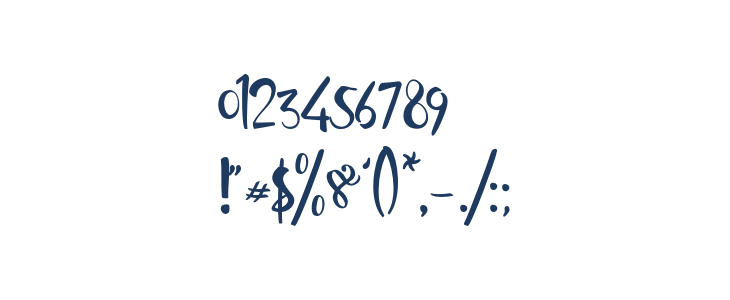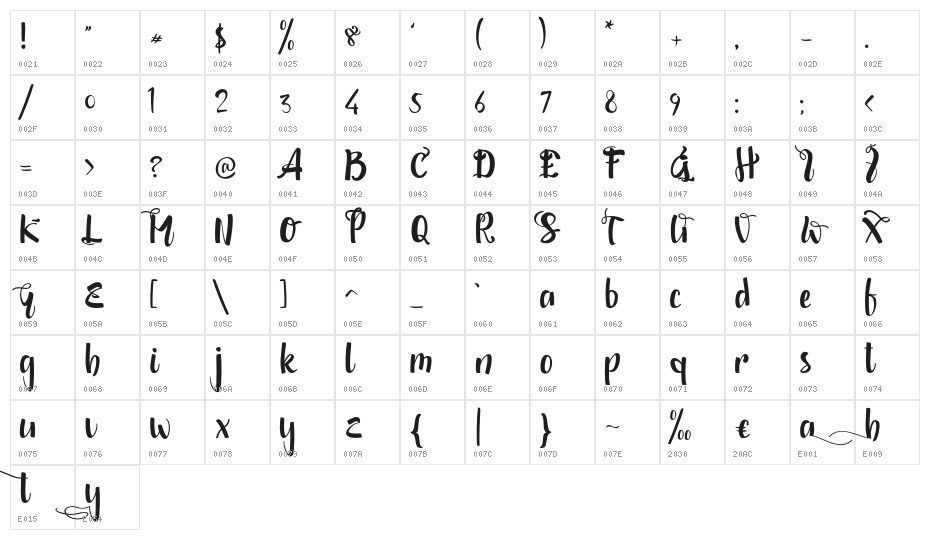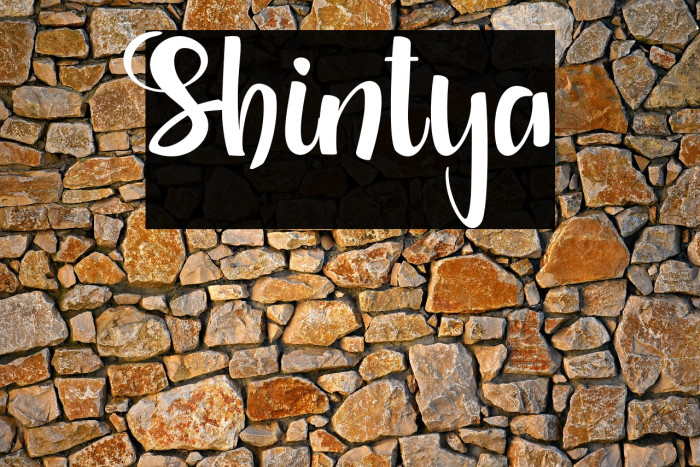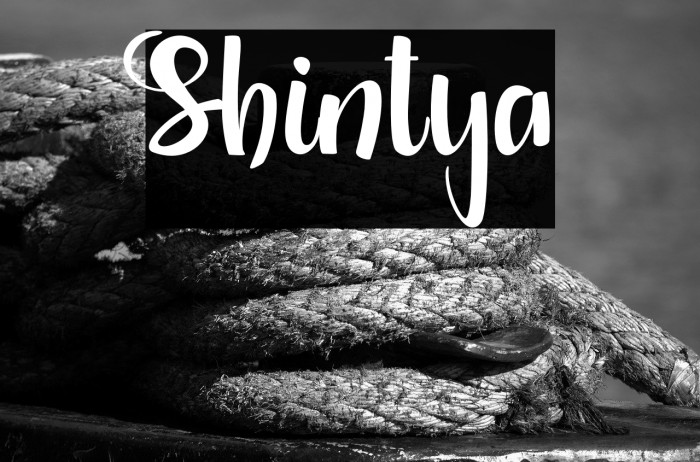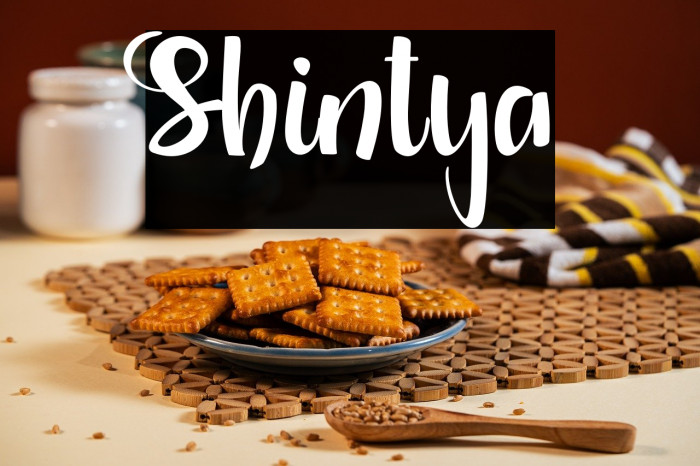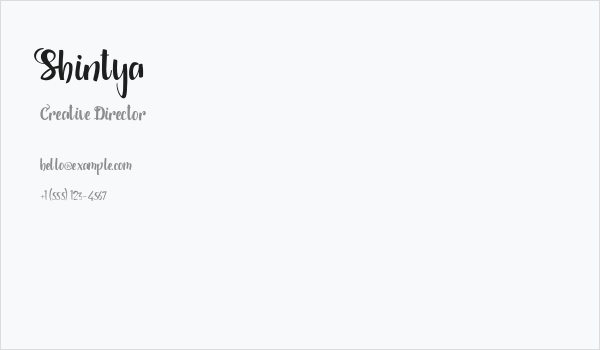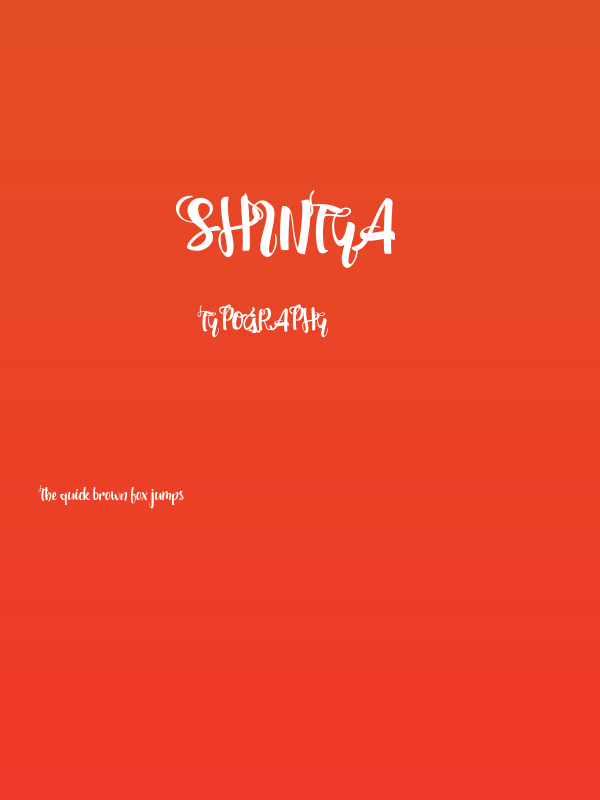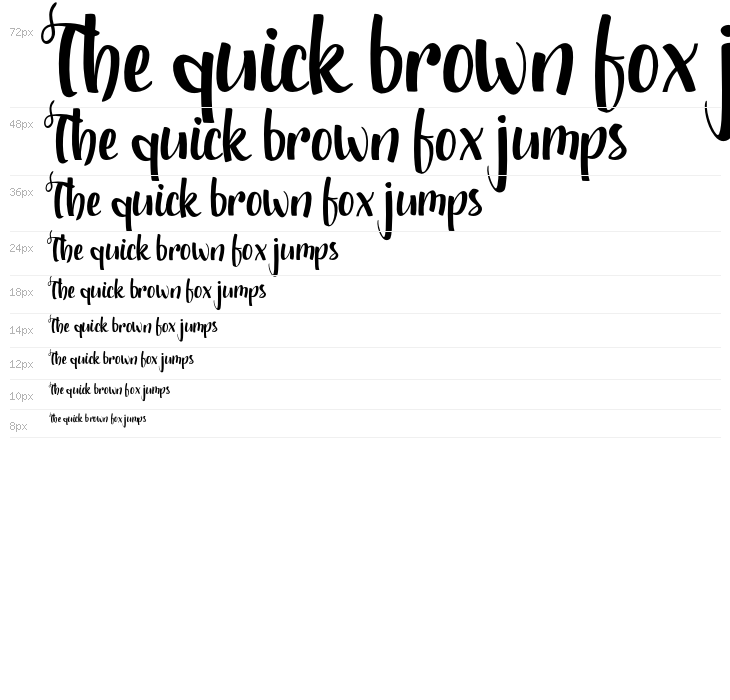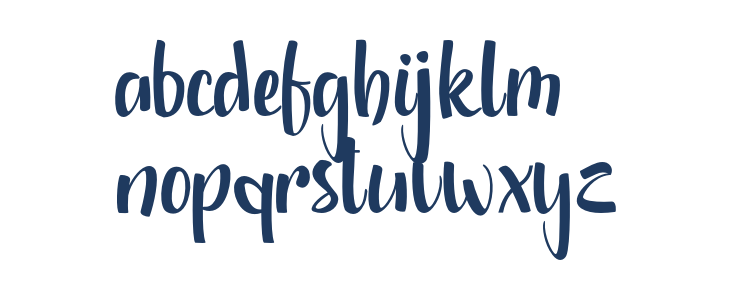
Shintya Font
Shintya Description
This font exhibits a playful and artistic style with a handwritten appearance. The characters are bold and feature a unique blend of curves and loops, giving it a whimsical and dynamic feel. The uppercase letters are particularly elaborate, with some incorporating decorative swirls and flourishes. The lowercase letters maintain a consistent style, complementing the uppercase with their own flair. The numerals are equally expressive, maintaining the font's overall aesthetic. Special characters are creatively designed, adding to the font's versatility. This font is ideal for projects that require a personal touch or a creative, informal vibe.
| Proposed Projects | Ideal for greeting cards, invitations, posters, and creative branding projects. |